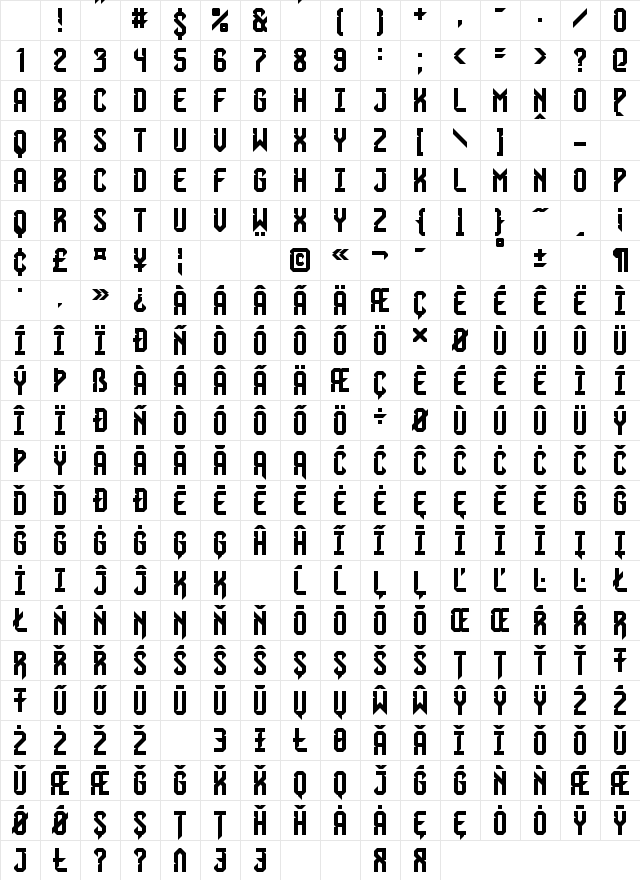
Complete AdiCup Q 2022 Regular glyph index. Displaying only characters natively supported by AdiCup Q 2022 Regular font.
AdiCup Q 2022 is a composed and adaptable typeface that performs quietly and consistently across a wide range of design contexts.